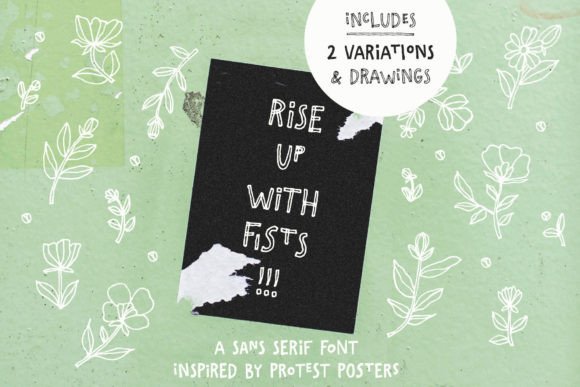
Introducing Rise Up With Fists, the ultimate font for making your designs stand out in a crowd. With its bold and expressive strokes, this handwritten font exudes a sense of energy and passion that's sure to captivate your audience.
Crafted by the talented anasfonts, Rise Up With Fists is inspired by the vibrant energy of protest posters, featuring a playful mix of variations and extra drawings that add a touch of whimsy and uniqueness to your projects. Whether you're creating logotypes, eye-catching quotes, or dynamic social media posts, this font is the perfect choice to make your words come alive.
Feel the rush of adrenaline as your designs take on a life of their own with Rise Up With Fists. Its powerful and confident strokes command attention, demanding to be seen and heard. Unleash your creativity and let your message soar with this remarkable font.
With Rise Up With Fists, you'll elevate your designs to new heights. Its versatility knows no bounds, making it the ideal choice for a wide range of projects. Embark on a visual adventure as you explore the endless possibilities that await you with this captivating font.
So, why settle for ordinary when you can create something extraordinary? Rise Up With Fists is your gateway to a world of bold and beautiful designs. Seize the moment and let your creativity flourish as you make a statement with every word.